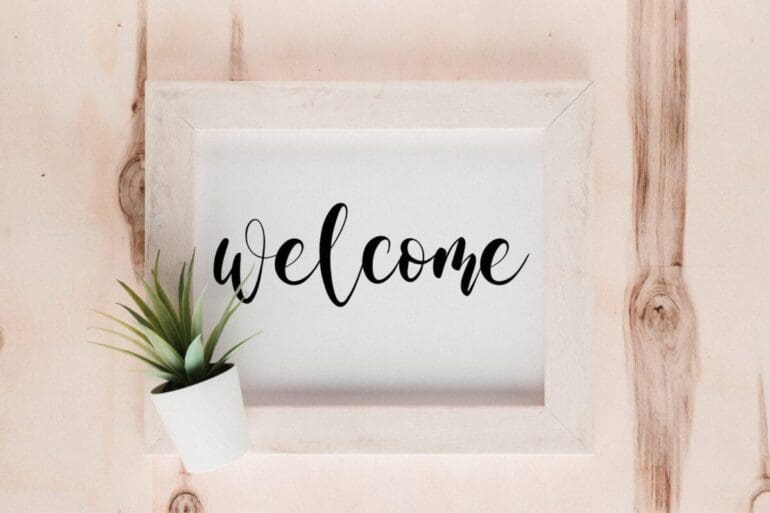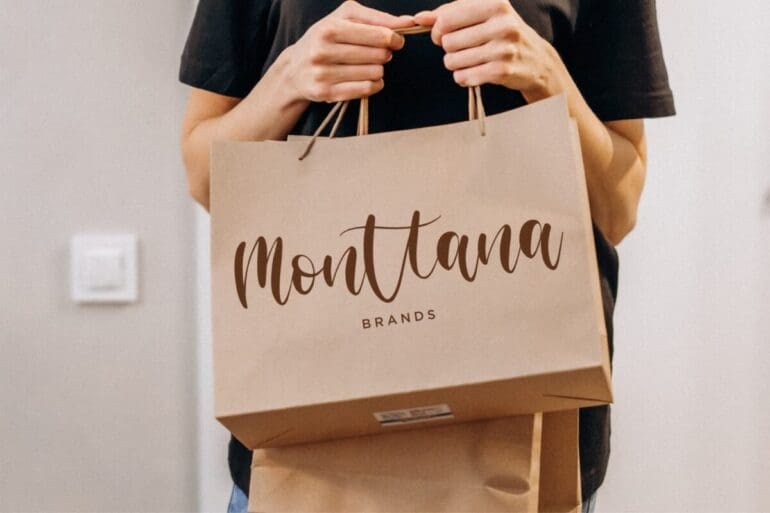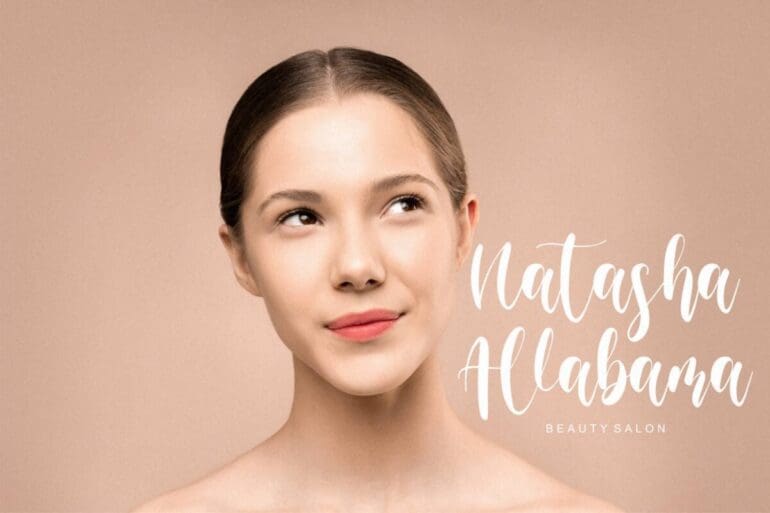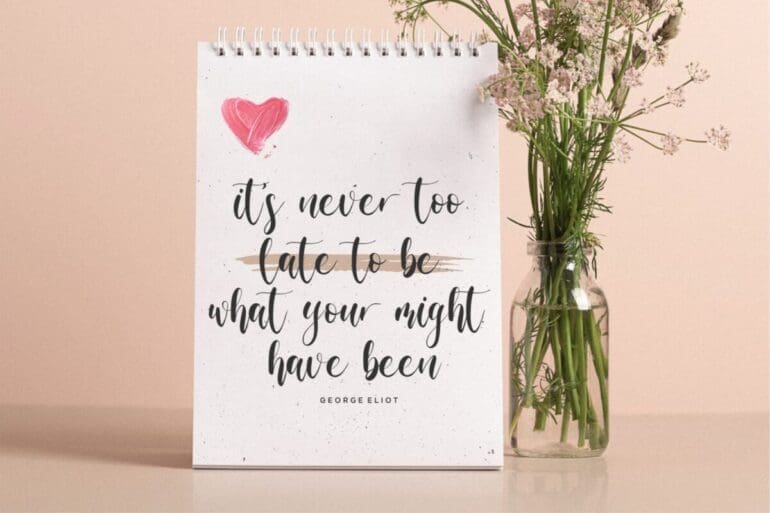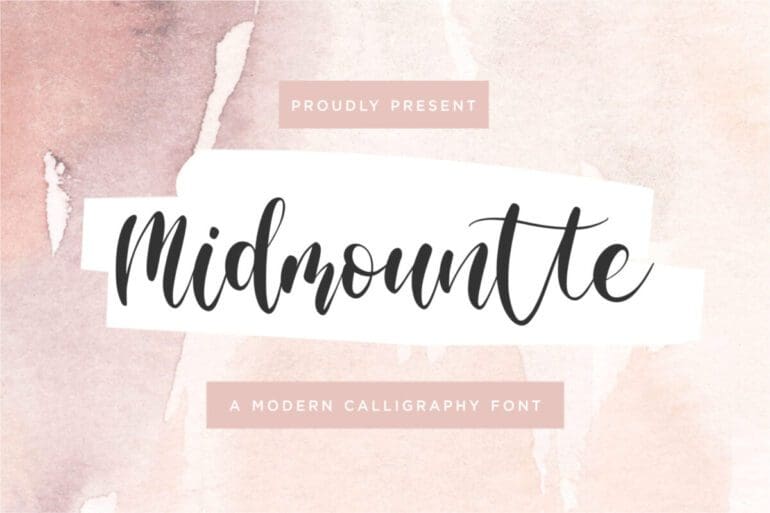
Midmountte Font
Midmountte is a Modern Calligraphy Font. Midmountte is perfect for product packaging, branding project, megazine, social media, wedding, or just used to express words above the background.